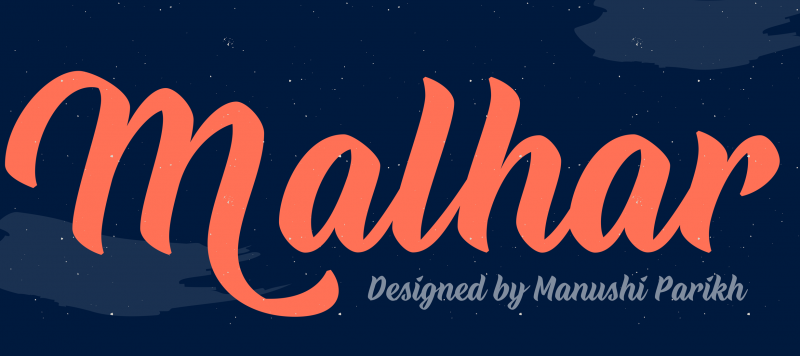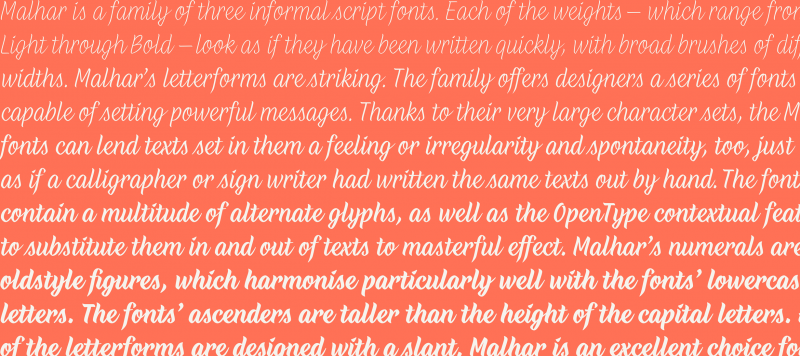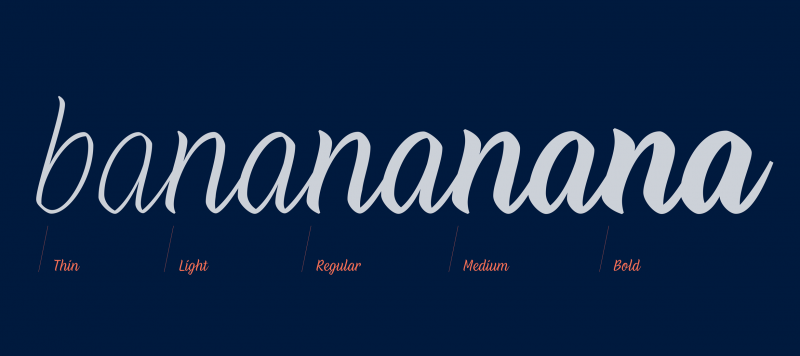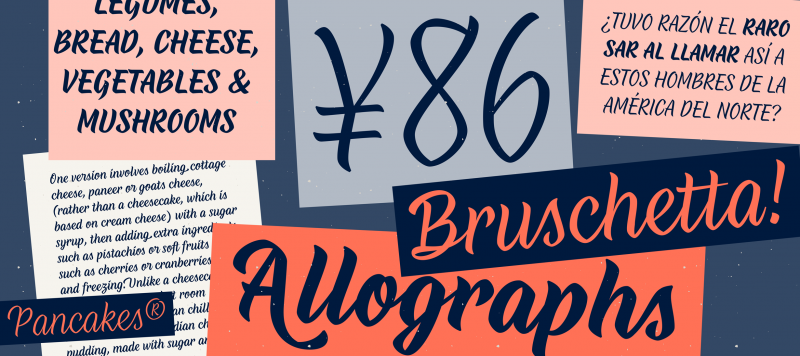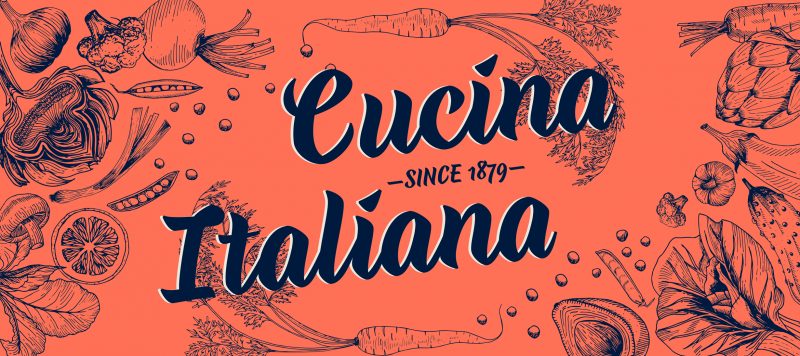
Malhar is a family of three informal script fonts. Each of the weights – which range from Light through Bold – look as if they have been written quickly, with broad brushes of different widths. Malhar’s letterforms are striking. The family offers designers a series of fonts capable of setting powerful messages. Thanks to their very large character sets, the Malhar fonts can lend texts set in them a feeling or irregularity and spontaneity, too, just as if a calligrapher or sign writer had written the same texts out by hand. The fonts contain a multitude of alternate glyphs, as well as the OpenType contextual features to substitute them in and out of texts to masterful effect. Malhar’s numerals are oldstyle figures, which harmonise particularly well with the fonts’ lowercase letters. The fonts’ ascenders are taller than the height of the capital letters. All of the letterforms are designed with a slant. Malhar is an excellent choice for use in editorial design, or for typesetting event-graphics. The fonts were developed by Manushi Parikh.
Family Name | Malhar |
Designer(s) | Manushi Parikh |
Classification | Script |